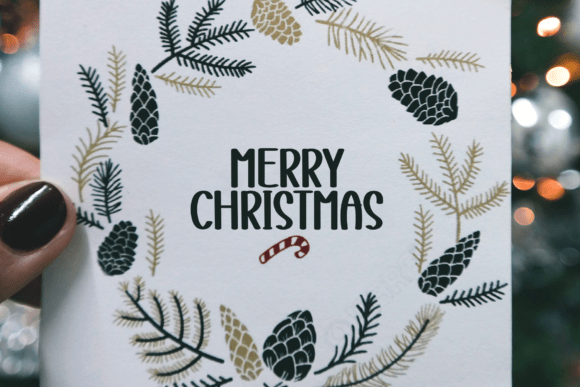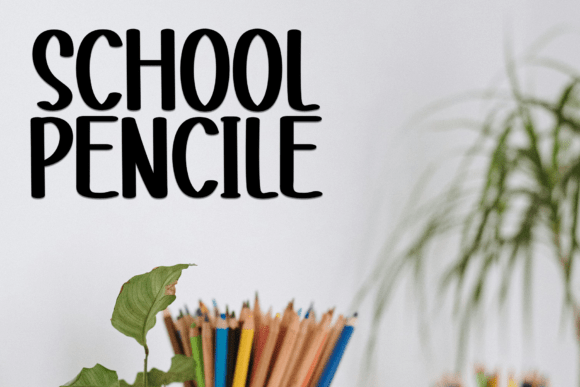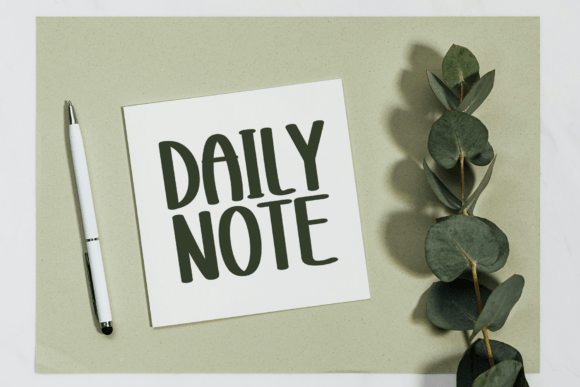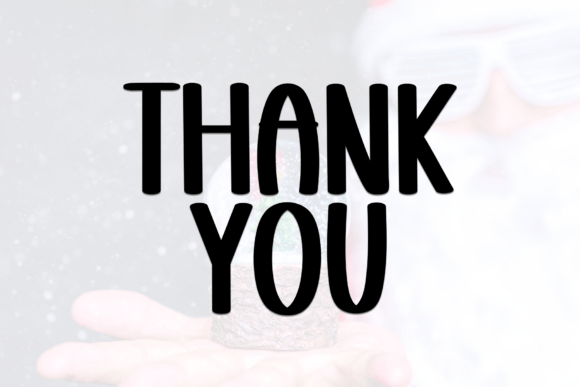
Introduction to Seasone Font
Remember that moment when you stumbled upon the perfect font for your design project? The one that made everything click into place and your vision suddenly become a reality? For designers, that moment is priceless. It’s the culmination of hours, even days, of searching for the perfect design resource. And, trust us, it’s a feeling like no other.
That’s exactly what you get with the Seasone Font – a high-quality, free download that’s sure to elevate any creative project. This beautiful handwritten font features characters that dance along the baseline, adding a cozy accent to your designs. Whether you’re working on a blog post, a social media campaign, or a branding project, Seasone Font is the perfect addition to your design arsenal.
Key Features of Seasone Font
- High-quality, professional design ideal for creative projects and presentations
- Transparent background, allowing for easy layering and customization in design applications
- Perfect for designers, artists, and writers seeking a unique, high-quality font for their creative project
- Seasone Font is a versatile design resource, suitable for a wide range of creative projects, from branding and marketing materials to digital art and publications
- Includes a comprehensive character set, covering Latin, Cyrillic, and Greek alphabets, as well as various punctuation marks and symbols
Honest Review: Seasone Font
As a designer, I’m always on the lookout for high-quality design resources to elevate my creative projects. I recently stumbled upon the Seasone Font, and I’m excited to share my honest review with you.
- High-quality design: The Seasone Font is a beautifully crafted font that’s perfect for any creative project.
- Transparent background: This feature allows for seamless integration with any design element, making it a versatile choice.
While the Seasone Font is an excellent addition to any design resource collection, there are a few limitations to consider:
- Limited font styles: The font comes in a limited range of styles, which may not be suitable for projects that require a wide range of font options.
- No bold or italic variations: While the font is clean and elegant, it lacks bold or italic variations, which may be a drawback for some designers.
Overall, I’m impressed with the Seasone Font, and I think it’s a great addition to any design resource collection. While it may have some limitations, its high-quality design and free download make it a worthwhile choice for any creative project.
Seasone Font is ideal for a variety of design projects, including social media graphics, presentations, and marketing materials. Its unique design and transparent background make it perfect for creative projects that require a touch of elegance and sophistication.
To get the most out of Seasone Font, experiment with different font sizes and styles to find the perfect combination for your design. You can also pair it with other design elements to create a visually appealing and cohesive look.